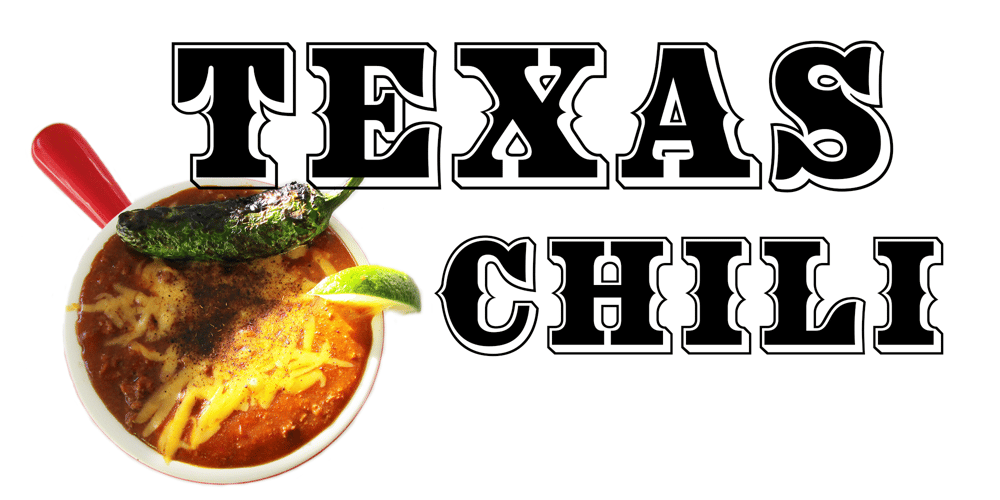
Texas Chili Font Family was designed by Michael Hagemann and published by FontMesa. Texas Chili contains 12 styles and family package options. Texas Chili is a modified version of our Philadelphian font family.With Texas Chili we’ve squared the curved inside brackets from the Philadelphian font which helps open up the inside of some letters for a sharper appearance.The Texas Chili font family also includes a Unicase i that’s balanced to the weight of the uppercase.You need an application such as Adobe Creative Suite or any other Opentype aware program to access the alternate Unicase i in the Chili font family.